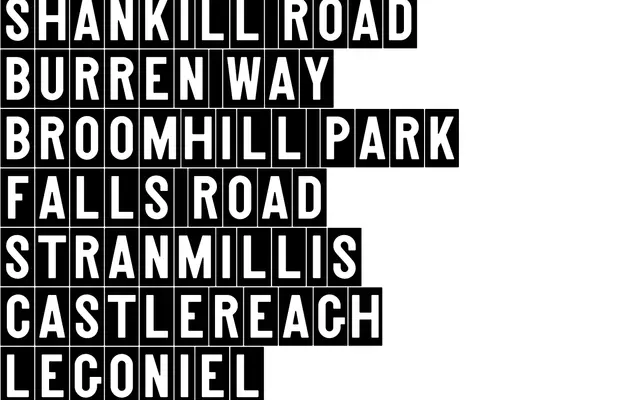
Farset + Feirste
Muirmcneil · John McMillan, MuirMcNeil · 2018
A bilingual type system drawn from Belfast's distinctive hand-made ceramic street signs, developed into both latin and Irish gaelic forms with matching cameo variants.
Originally prototyped by John McMillan of Ulster University in 2015 from Belfast Corporation's late 19th-century tiled street signage, the system was developed into a full working typeface by MuirMcNeil from 2018. Two primary families cover the latin and Irish gaelic scripts, named Farset and Feirste after the river and the city's Irish name respectively, each accompanied by cameo versions that replicate the inlaid tile aesthetic. The project involved redefining contours, softening terminals and completing both character sets in upper and lower case.
Based on Belfast's historic hand-made tiled street signage, this is a display typeface derived from vernacular letterforms with both latin and gaelic versions, plus cameo variants replicating the original tile appearance.